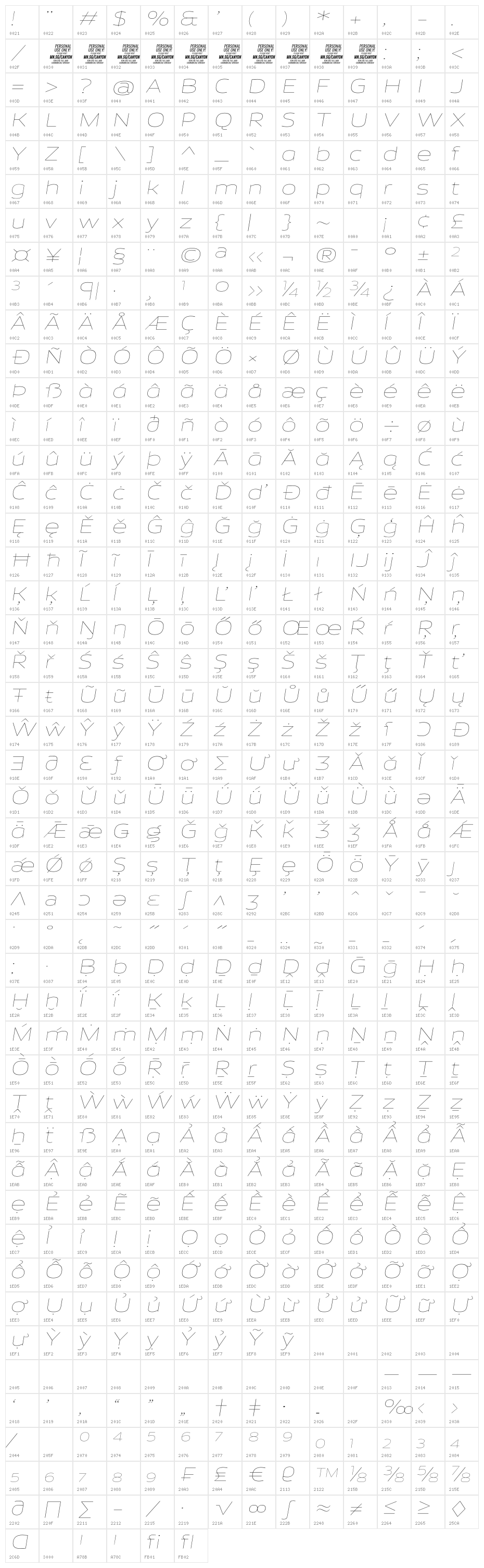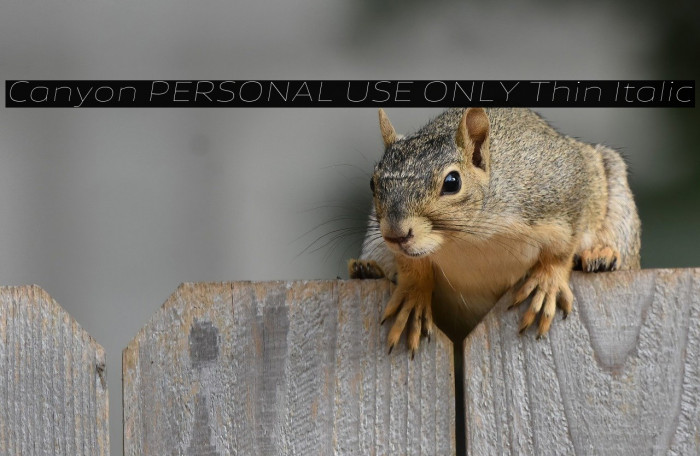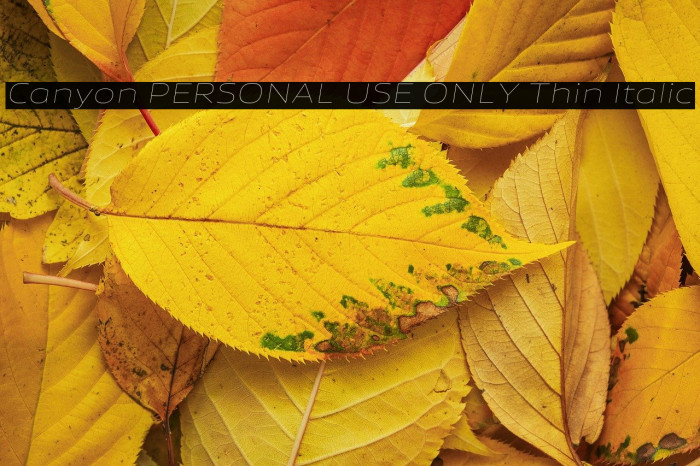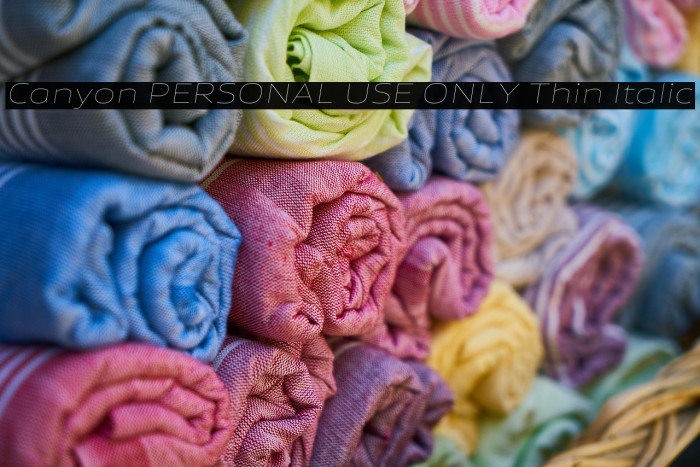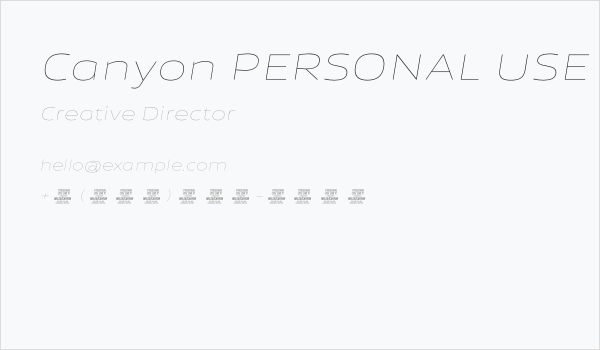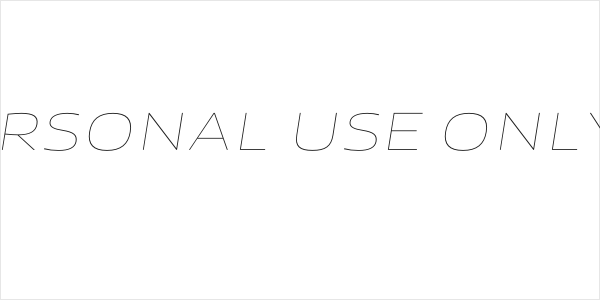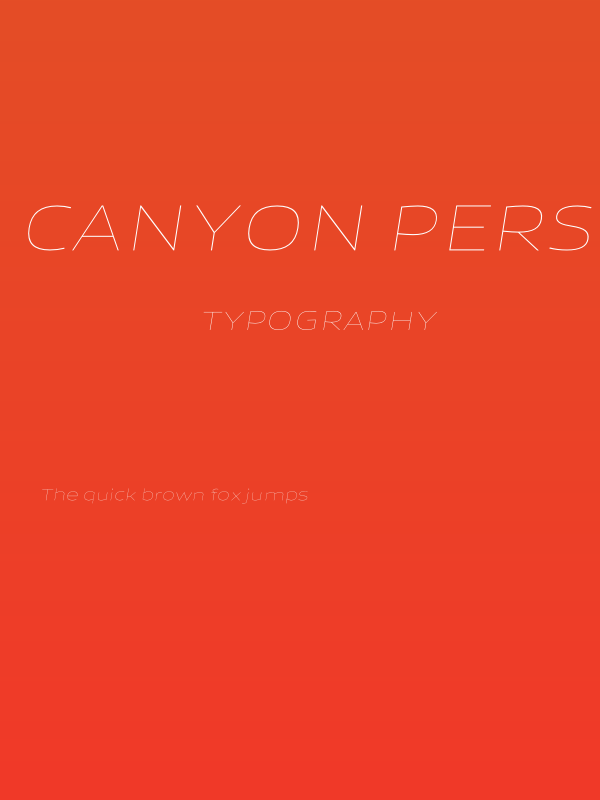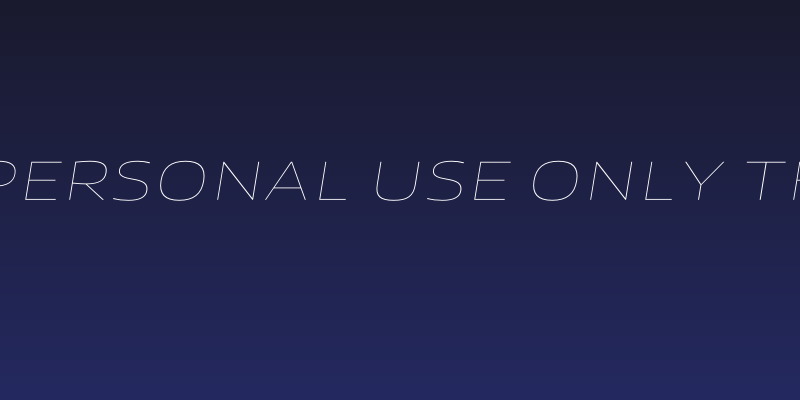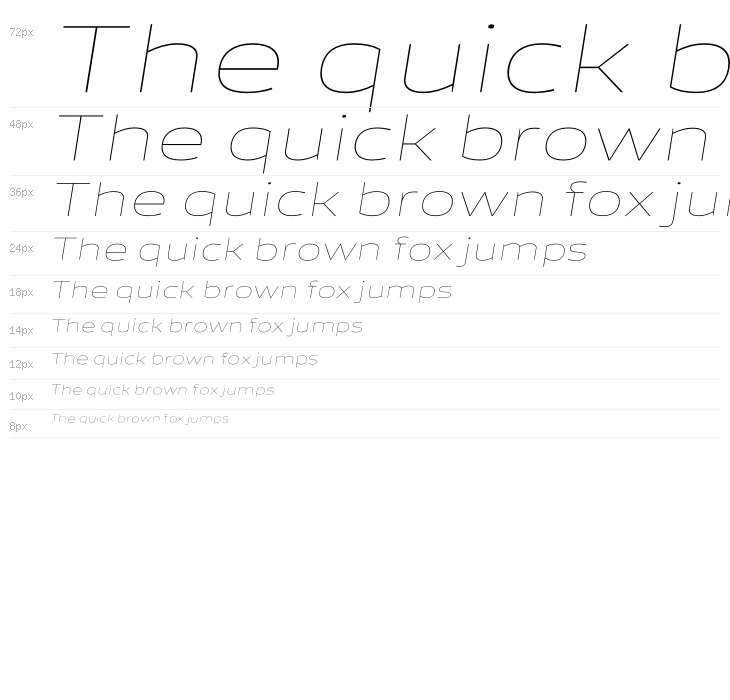
Canyon PERSONAL USE ONLY Thin Italic Font
Canyon PERSONAL USE ONLY Thin Italic Description
This font features a sleek and elegant design with a thin, italicized style that conveys a sense of modern sophistication. The characters are slightly slanted, enhancing the dynamic and fluid appearance. The thin strokes give it a delicate and refined look, making it suitable for projects that require a touch of elegance. The uppercase and lowercase letters maintain a consistent style, with clean lines and minimal embellishments. The numerals and special characters complement the overall aesthetic, providing a cohesive and versatile typeface.
| Proposed Projects | Ideal for fashion magazines, luxury branding, elegant invitations, and modern web design. |